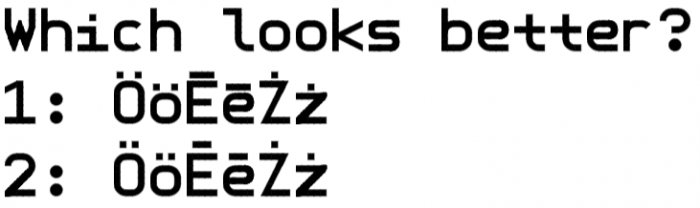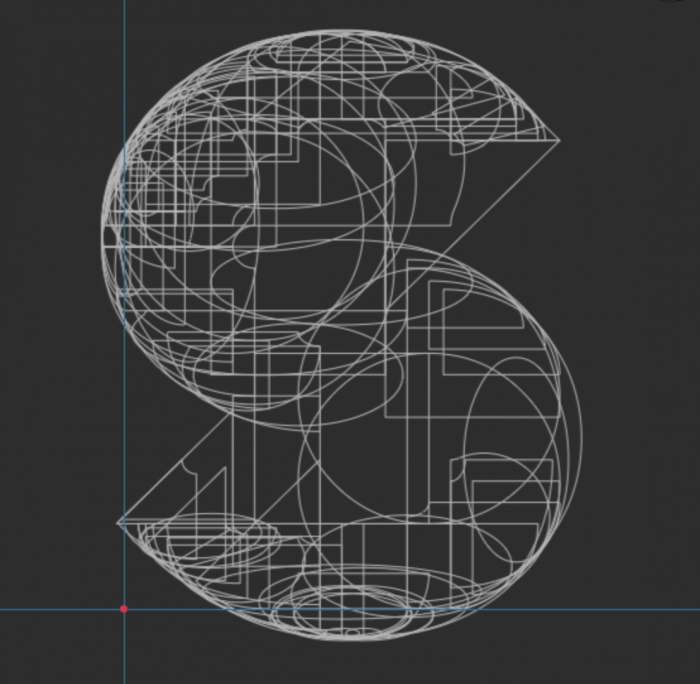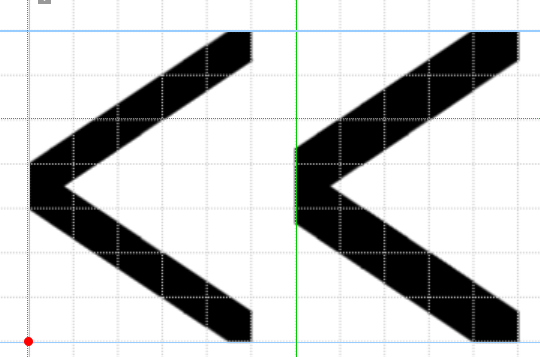
This looks nice, but my only concern is the crossbar on the A. It seems a bit too high for me, Maybe it could be lowered by a grid square and a half?
Letter Œ and ç seems to look merged.
They don't look like they are connecting to eachother?
#2 looks better IMHO
#2.
I am with the others: second option is far more legible, especially at smaller sizes.
On the other hand, for the same reason, perhaps the space between the dots of the umlaut could still be a bit wider.
I'm having trouble making some of the superscripts and subscripts look nice, especially 5, 6, 8, and 9. Does anyone have any ideas?
Finished Latin Extended-D. Someone remind me to go back and finish Phonetic Extensions and Phonetic Extensions Supplement; I put those of because it's really hard doing tiny superscript and subscript letters.
Finished Phonetic Extensions and Phonetic Extensions Supplement, and added Old Italic and Gothic. Old Italic has been modernised slightly.
Nice work so far. I wonder if you have plans on refining the font in Glyphs or FontForge when this is finished?
Maybe. I have no idea how to use either. But it'll definitely be useful to iron out the radius-3/2 curves I've had to patch together, as well as letters like Ƙ and ƴ.
How did you do those r=3/2 curves????? I gots to know!
@AFA: He used a technique called "brick patching". It was first demonstrated by will.i.om in his font "Patchman", and I used it to make large curves in my newest font. There are some samples that show you how it's done.
As above. You can see it in the second sample.
I- don't- get it??
How exactly?
How to replicate brick patching and how to apply it to smooth Bezier rounds???
@AFontAbove Dunno, but it approximates beziers even better, but still, they aren't 100% perfect and might require touching up to clean up any bumps left behind.
Amazing font, MANY characters, only issue is diacritics connecting to taller letters. For example, d̚ looks like a d with a hook.
@BaAaDa It might be because of limitations regarding diacritic placement.
Take the G with Tilde for example. It is a letter of the Guaraní alphabet, but there is no pre-composed Unicode character for it, so you have to use the combining tilde. Without the use of anchor marks, either the capital has the diacritic colliding with the letter, or the lowercase having it separated from the letter.
@frongile: William only first gave it a name, the technique wasnt something new.
Well, I can't do this and will.i.om did it in that font... I can't accumulate so many bricks and in such exact positions... in a 2:2 grid. will.i.om never revealed his way of doing it, although he announced it. Any ideas?
It's been close to 3½ years since @William Leverette (will.i.ૐ) hinted at this tantilizing new "hack" for FontStruct ("Brickstacking" on steroids?), but so far he hasn't disclosed how he achieved this amazing technique...
Brick Patching: fs Patchman by @William Leverette (will.i.ૐ)
I didn't acutally use brick patching. I just stacked a few different composite bricks to get something approximating a radius 3/2 curve.
Cyrillic Extended B
Which Tifinagh letter ye looks better?
Did not finish Latin extended d because of Unicode 16.0
@erictom333 i think that the second one is better
You would have made the ARABIC-INDIC DIGIT TWO (٢) look more like a capital gamma, according to my handwriting
About 6,000 characters?! WOWIE-ZOWIE!